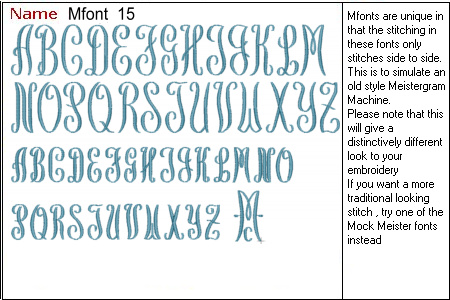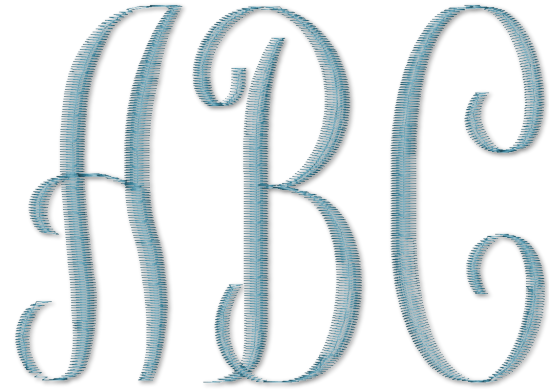
MFont_15_Monogram_3_Ltr_Script
This font simulates the stitching of a Zig-Zag Meistergram Monogramming Machine. Please note that the stitch appearance will be quite different than traditional lock stitch embroidery